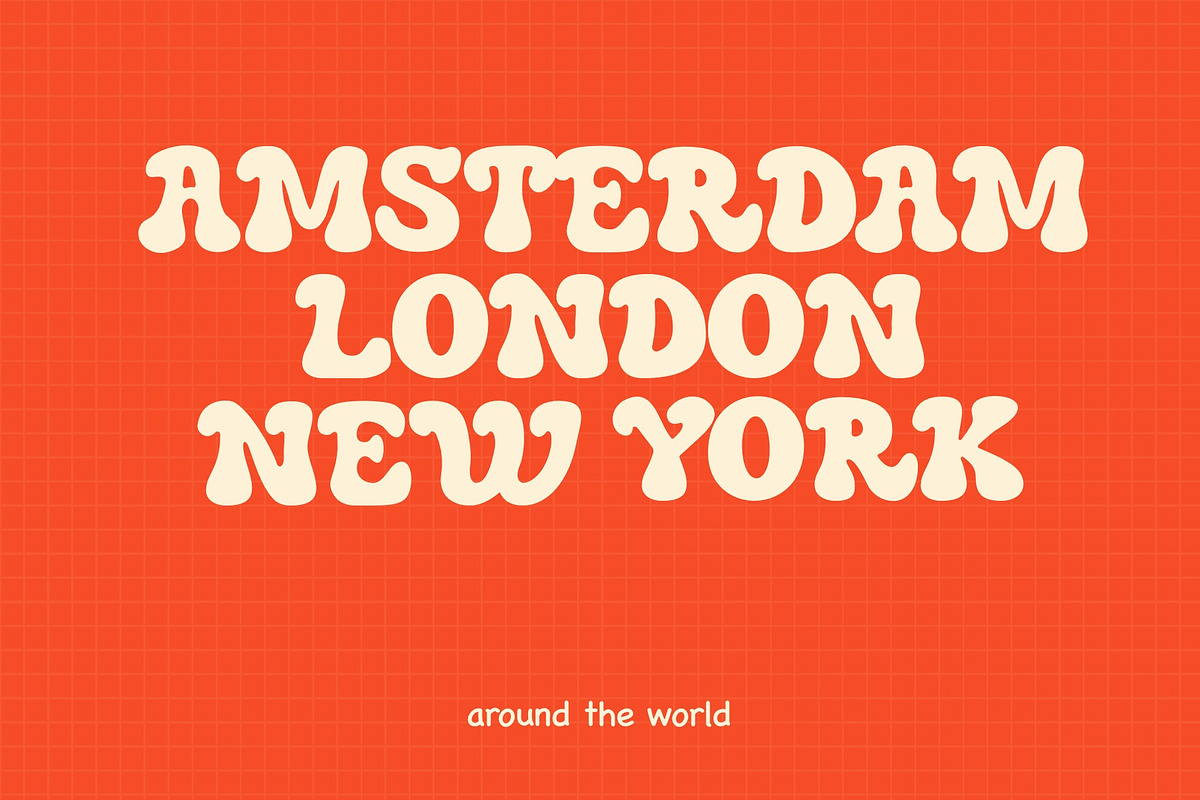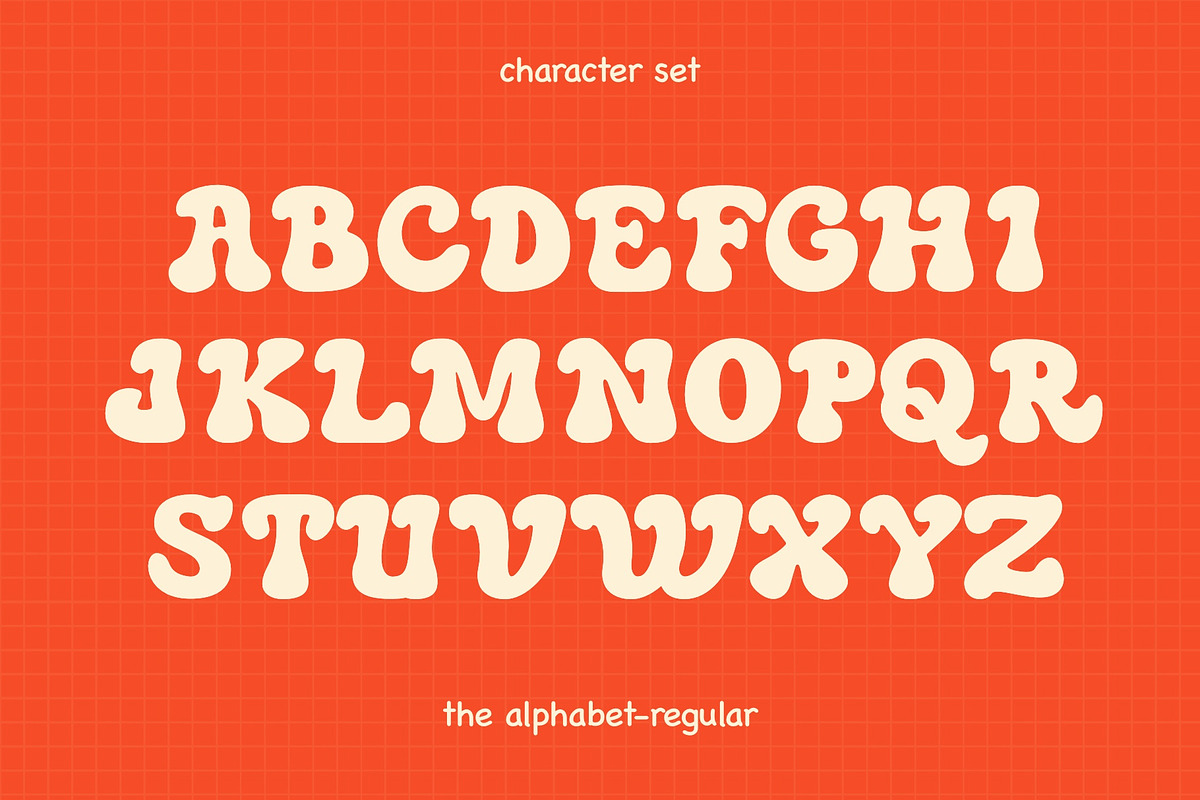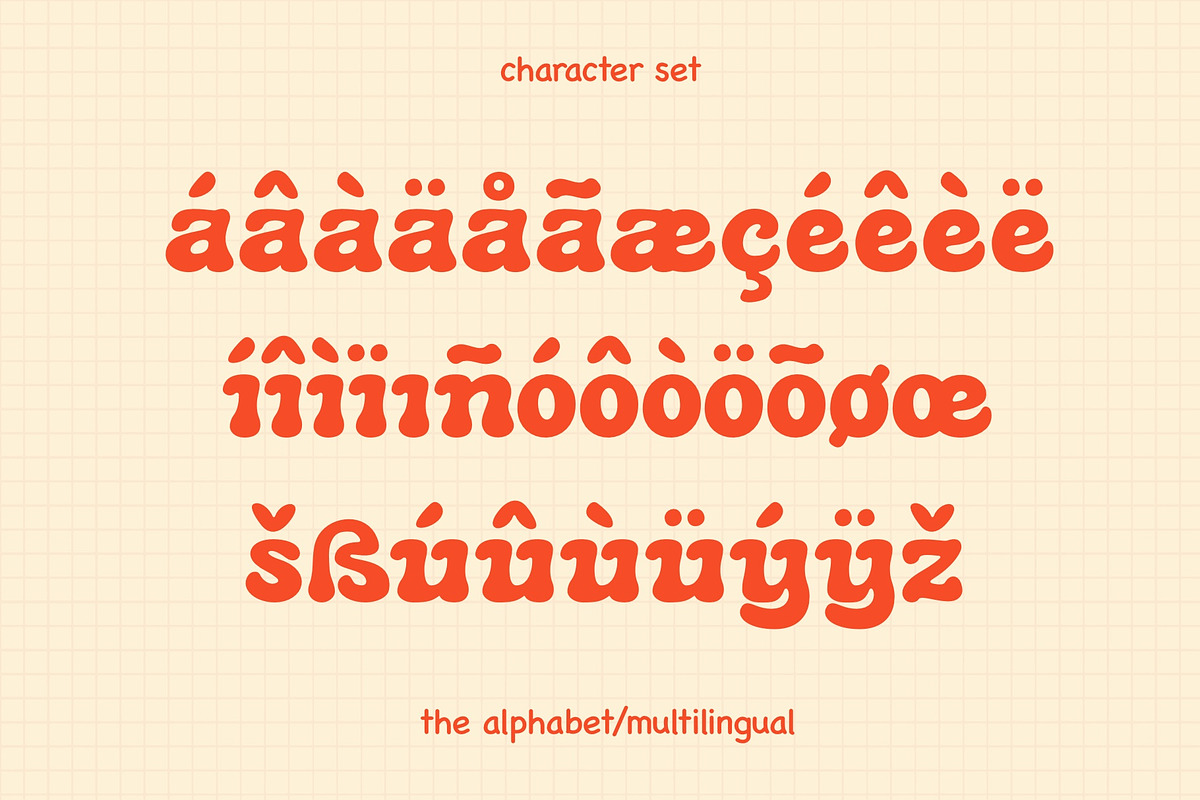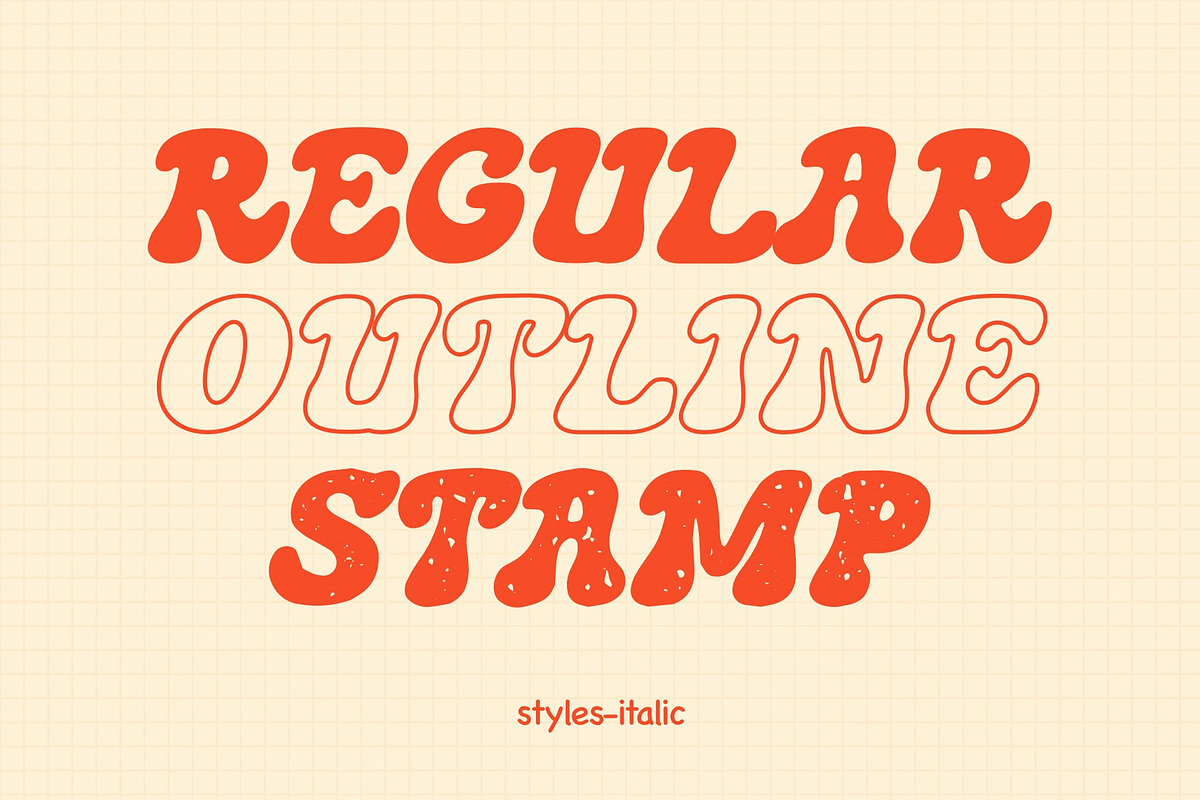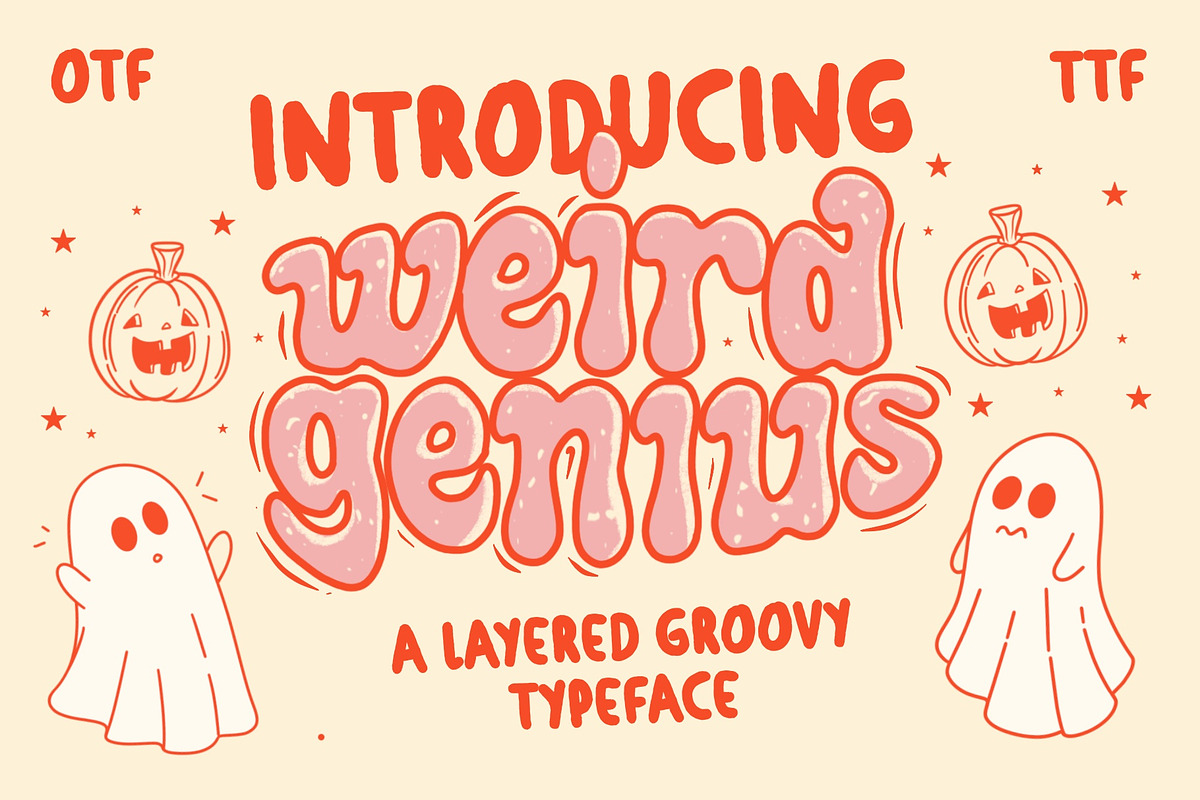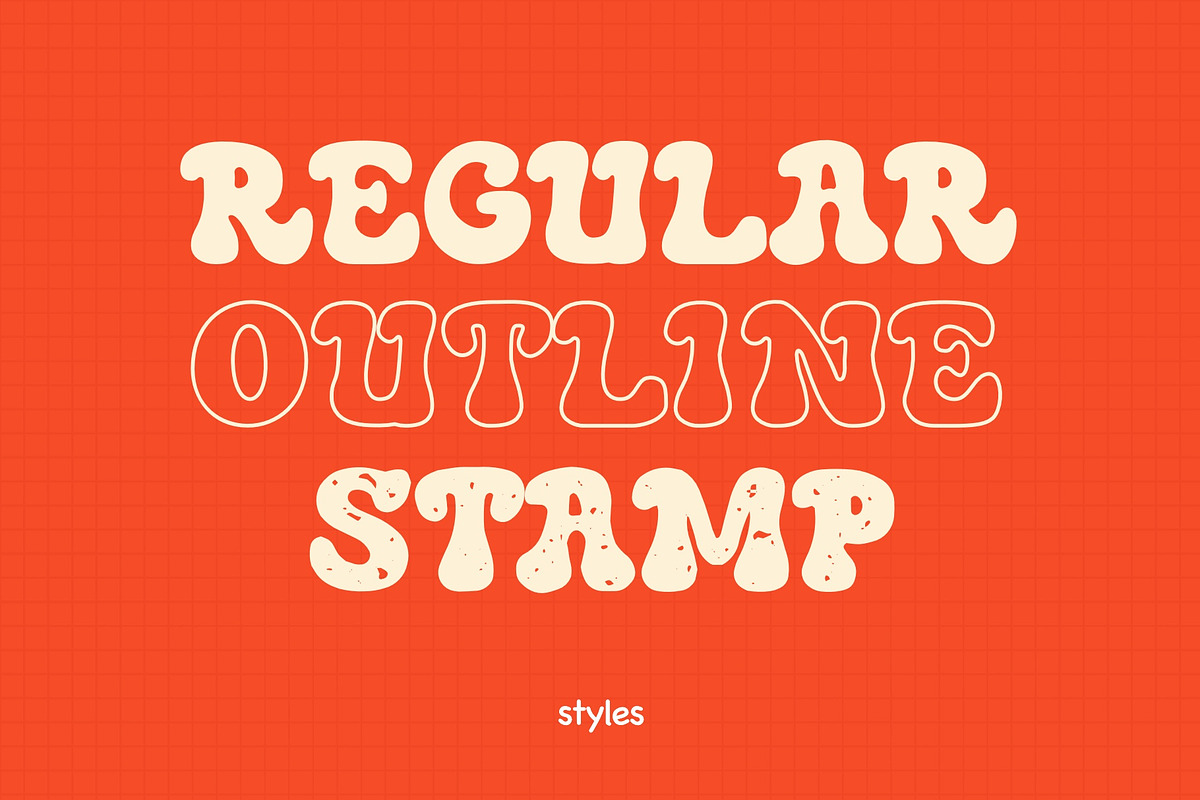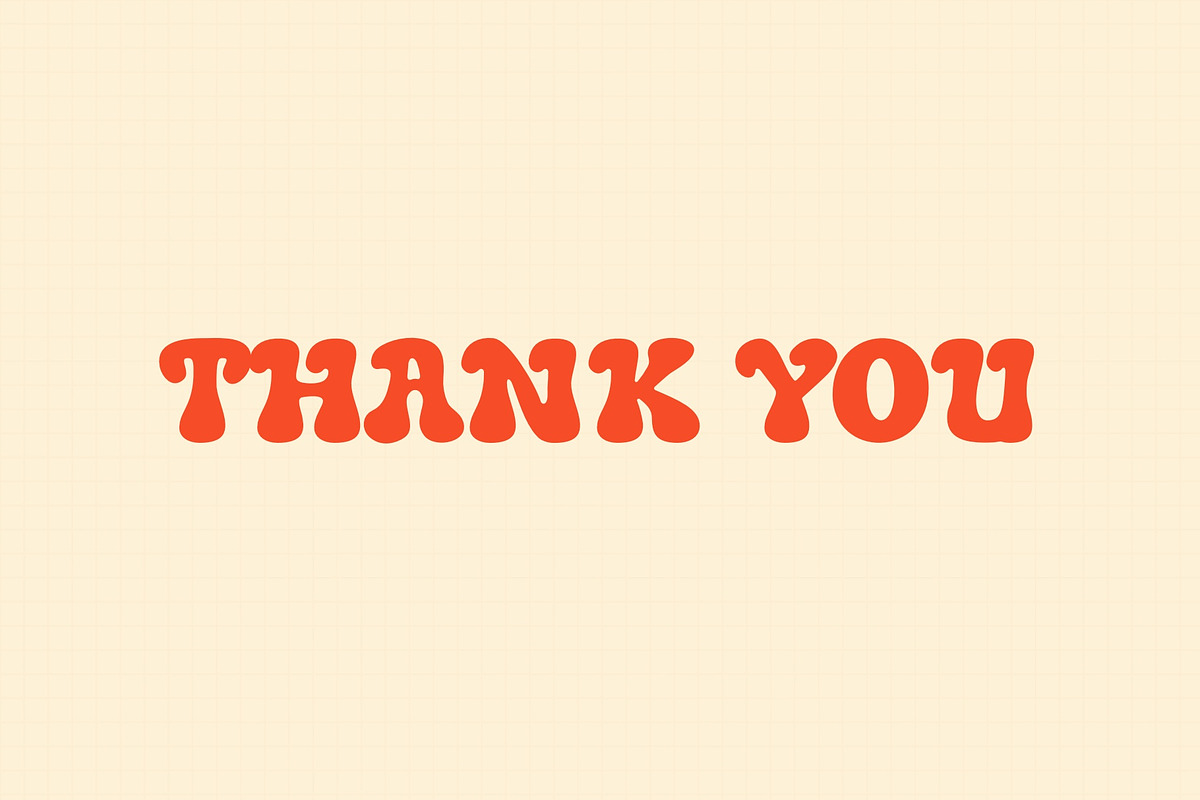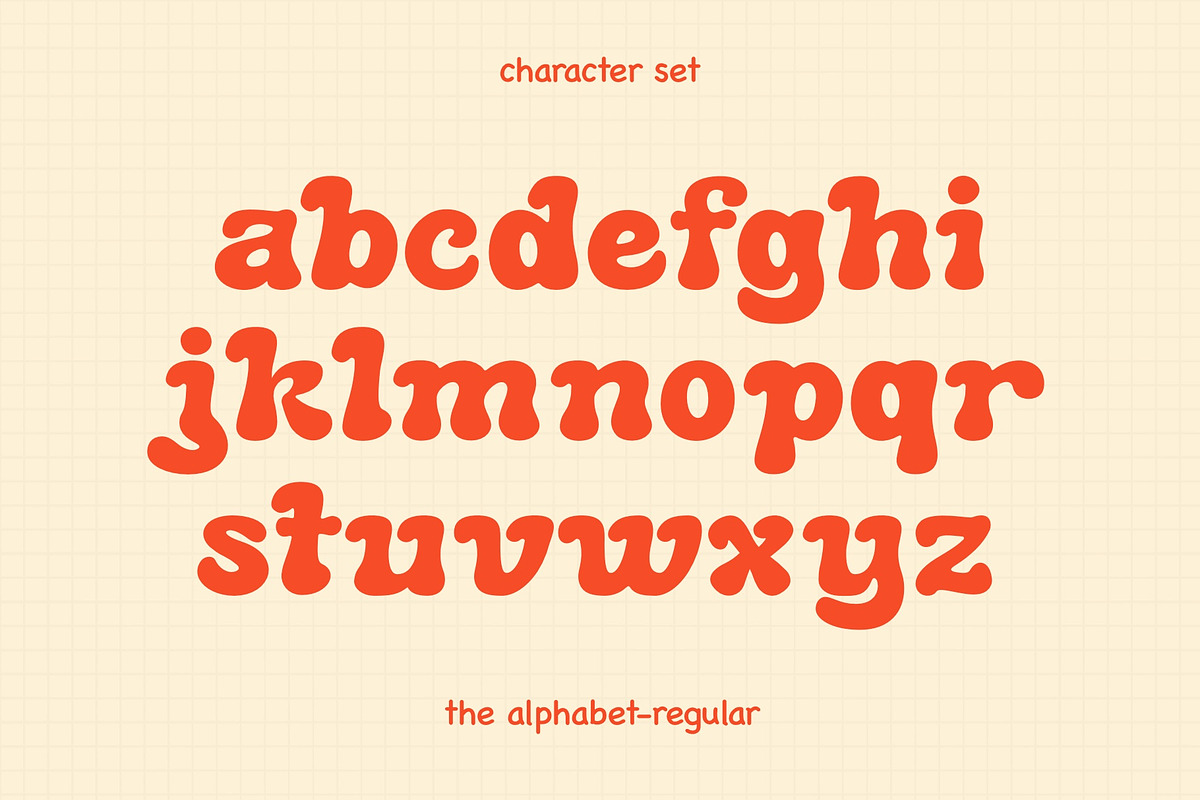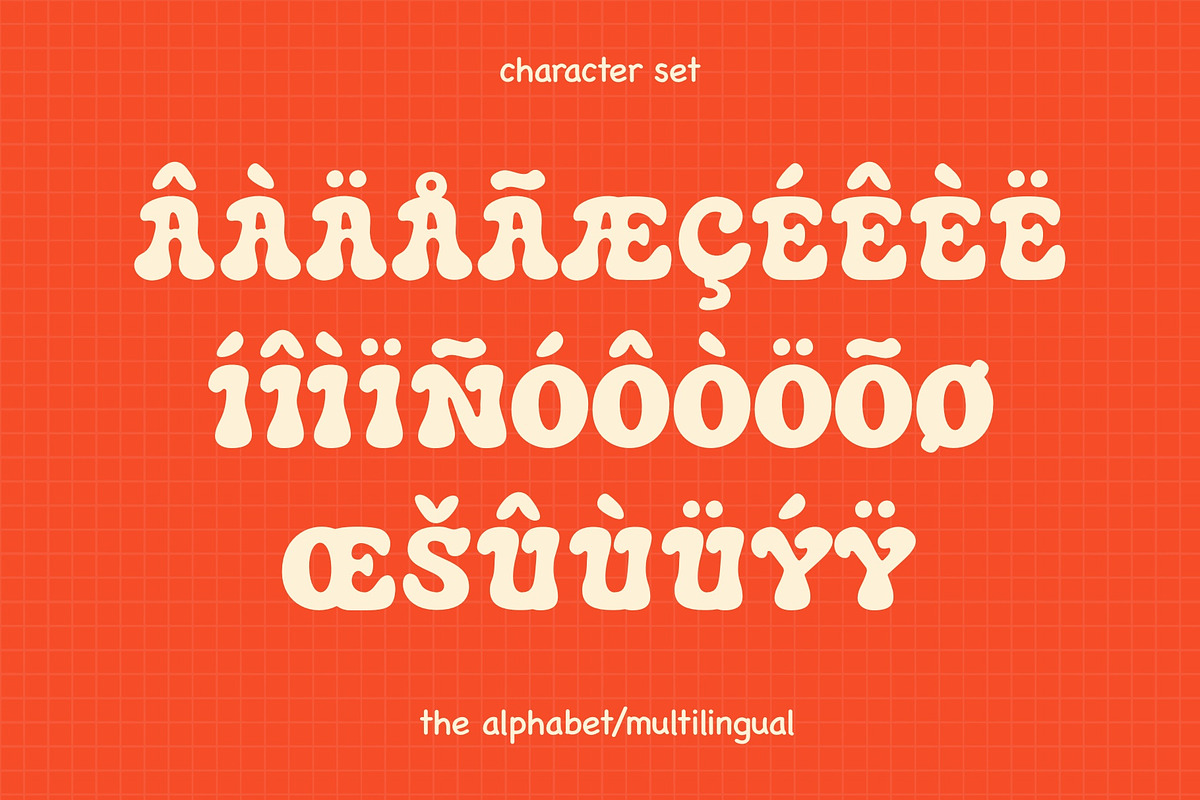
Weird Genius Fontvv- Groovy Font
"Weird Genius" is a captivating font product that embodies the essence of groovy handwriting with a delightful vintage flair. This typeface available in SVG format, compatible with advanced tools such as Cricut and Glowforge, and for use in Procreate. "Weird Genius" will infuse your typography with a distinct, groovy personality.